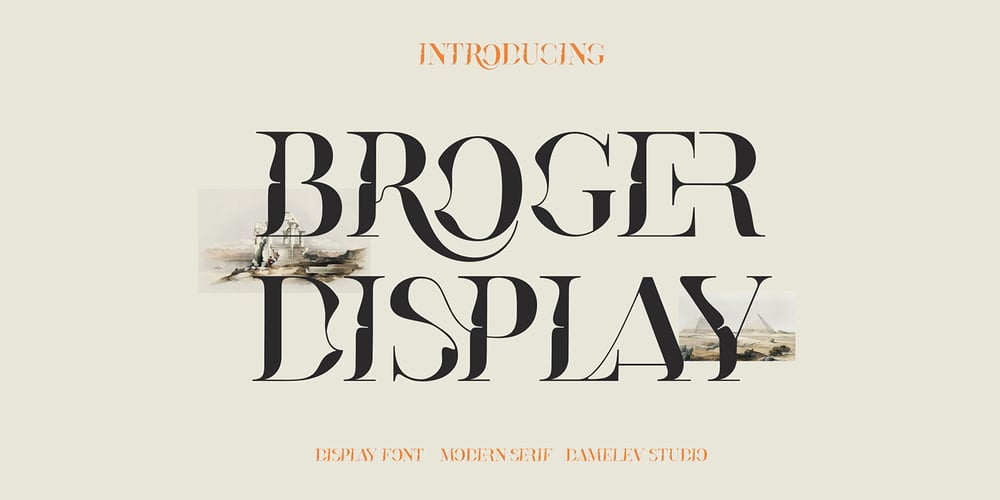
Broger Font Family was designed by Tanzil Adduha and published by Tanziladd. Broger contains 1 styles and family package options. Broger Display belongs to the “twisted shape” category with beautiful ligatures, it’s a little hard to read in small sizes but very awesome when in large sizes, that give any headline an elegant appearance. Broger Display presents luxury, glamour, exuberance, and beauty.It works perfectly for creative project such as logo, T-shirt / apparel, badge, invitation, packaging,headline, poster, magazine, greeting card, and wedding invitation. You can access the open type features and multilingual on mostly Adobe programs, such as Adobe Indesign, Adobe Illustrator, Adobe photoshop etc.